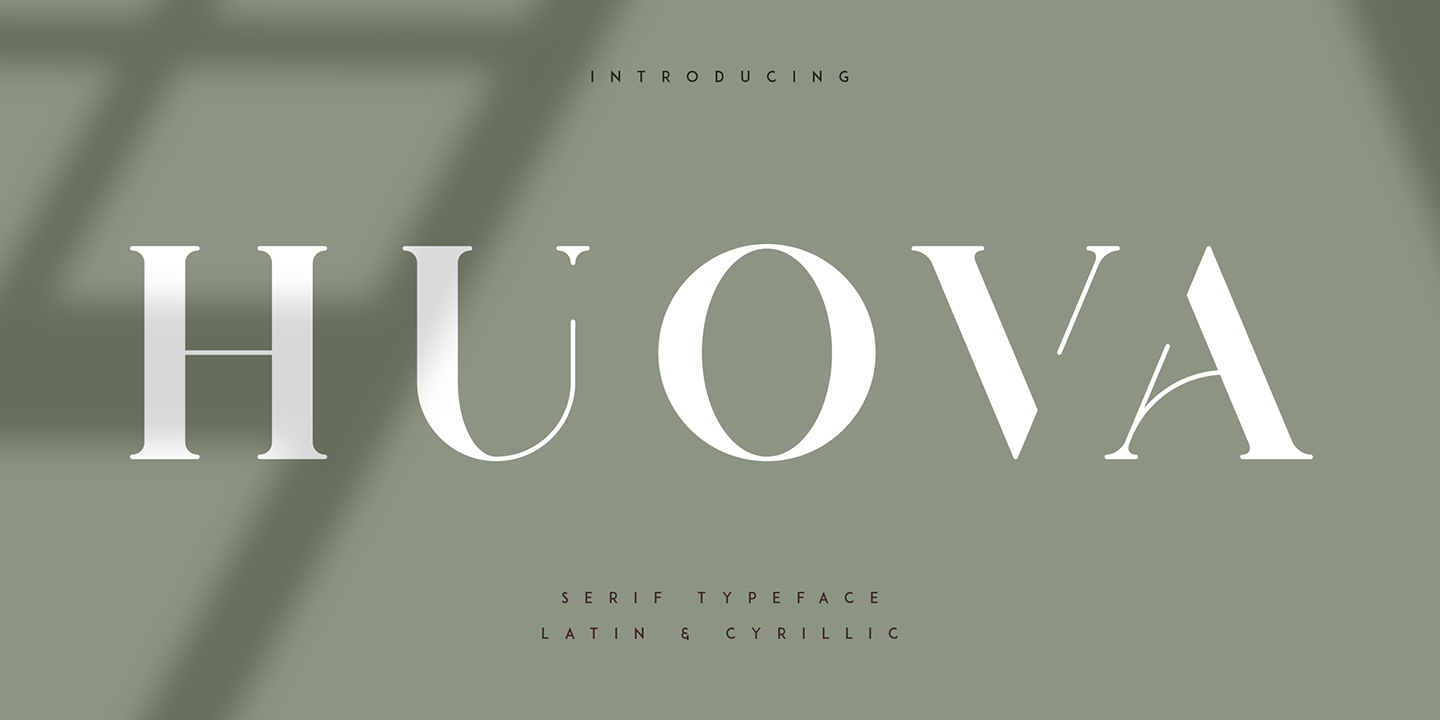
Huova Font is perfect for Finnish cultural heritage branding, Nordic design studios, Scandinavian wellness centers, Finnish language publications, Arctic tourism marketing, and authentic Northern European design projects. Its Nordic character makes it ideal for Finnish cultural institutions, Scandinavian lifestyle brands, Nordic furniture companies, Finnish technology firms, and any application requiring clean typography that conveys Finnish sophistication, Nordic minimalism, and the distinctive design aesthetics of Finnish culture and Arctic elegance.
Huova Font is exciting because it captures the distinctive elegance and design sophistication of Finnish culture through cleanly crafted letterforms that reflect the minimalist beauty and functional excellence that define Finnish design philosophy. Its Nordic proportions and Finnish-inspired details evoke the serene landscapes of Finland and the innovative spirit of Finnish design, making it perfect for brands seeking to convey authentic Nordic sophistication and Finnish cultural identity. The font's Finnish character transforms communications into expressions of Nordic design excellence.
Huova Font family includes Nordic-inspired weight variations typically featuring Light, Regular, Medium, and Bold options with clean styling that maintains Finnish authenticity. The family often incorporates Nordic symbols, Finnish ornaments, and Scandinavian design elements optimized for cultural heritage applications, providing designers with comprehensive tools for creating authentic, Finnish-focused typographic compositions.